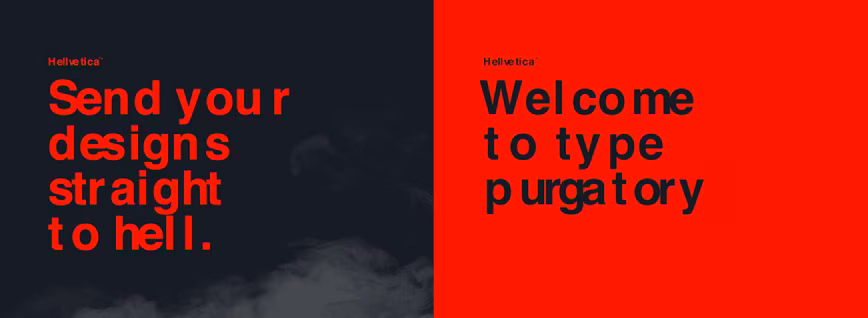
Halloween is just around the corner and while most celebrations are pretty harmless — drunken costume parties, skeleton decorations, the maiming of innocent pumpkins — there are some people in this world that just take things too far.
Creatives Zack Roif and Matthew Woodward have unleashed an abomination upon this world: Hellvetica, a disfigured Helvetica with truly torturous kerning.
Kerning, which adjusts the spaces between letters based on how they’re shaped, is usually applied to make the text more pleasing. Hellvetica, however, turns it into its anti-thesis by randomizing the spaces between — resulting in nauseating devil script.
What makes this atrocity is even more blasphemous is it distorts Helvetica, which is considered by many to be the world’s most iconic and beautiful font. It’s been used in a myriad of timeless designs, such as the New York City’s subway system. Here you can see Roif’s take on it with Hellvetica:
Another great specimen. pic.twitter.com/qd53NjqsiL
It’s clear Roif and Woodward want to see the world burn… but after having downloaded it and played around with it a bit, I’m starting to be convinced by their anarchist ways (also the ‘kern in hell’ pun helped tip me over the line). Beauty and order are overrated, it’s time to wreak havoc on our rigid online world! Also, why should I alone suffer through reading a text in Hellvetica?